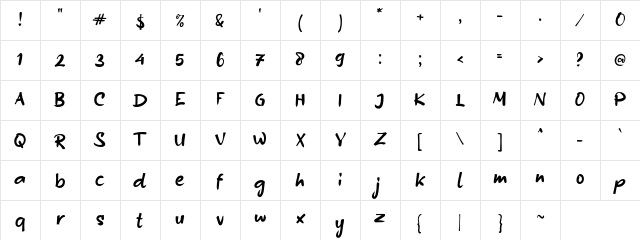
Complete b Before Sans Regular glyph index. Displaying only characters natively supported by b Before Sans Regular font.
b Before Sans is a composed and adaptable typeface that performs quietly and consistently across a wide range of design contexts.